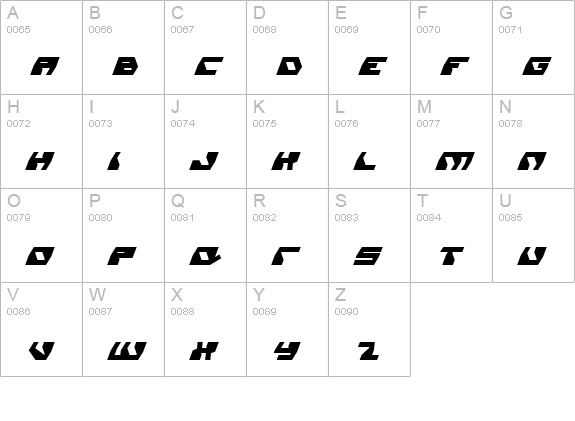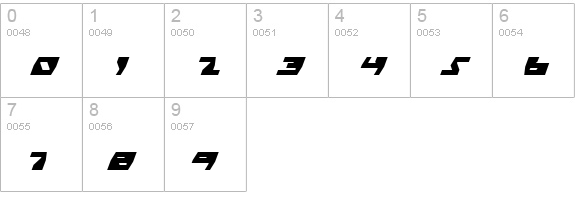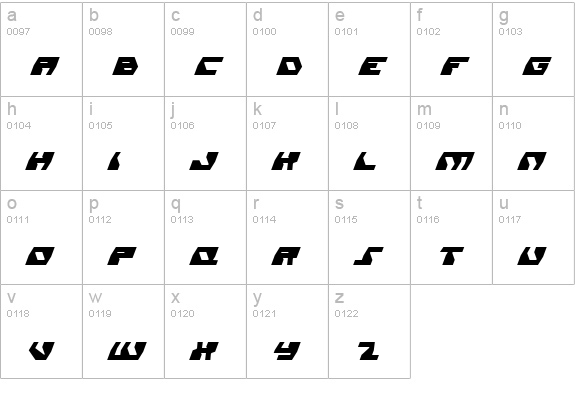
Daedalus Condensed Italic Font Details
Daedalus Condensed Italic is a distinctive, condensed-width, italic variant in the Daedalus typeface family \xE2\x80\x94 well suited to design and typography projects.
Daedalus Condensed Italic font exudes a sense of elegance and sophistication with its sleek and modern design. The slanted and condensed italic style adds a touch of flair and dynamism to any project it is used in. The unique letterforms of this font strike the perfect balance between readability and stylishness, making it a versatile choice for a wide range of design applications. What sets Daedalus Condensed Italic font apart is not only its aesthetic appeal but also its availability for free download at FontsMarket.com. This means that you can easily access this high-quality font to enhance your projects without any cost. Whether you are working on a branding project, editorial design, or any other creative endeavor, Daedalus Condensed Italic font is sure to elevate your work with its refined and contemporary look. Download it today and experience the impact of this exceptional typeface on your designs.